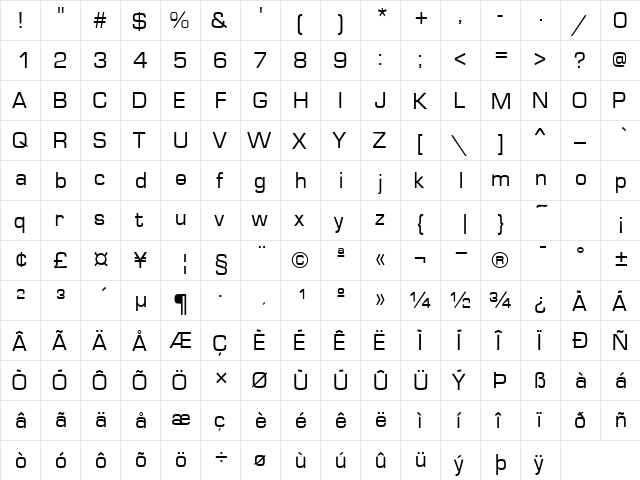
PelicaSSK Regular
Design Context for PelicaSSK Typeface
PelicaSSK offers clean, dependable letterforms without strong stylistic allegiance, making it a practical choice for designers who need flexibility.